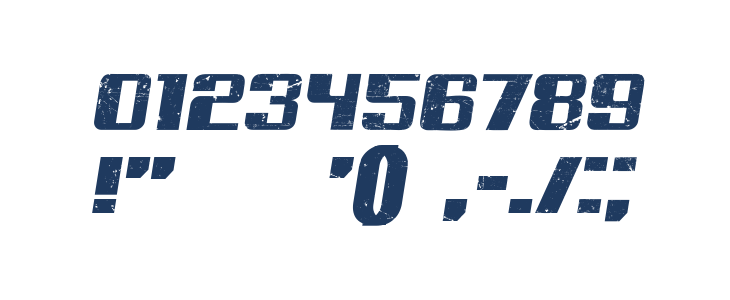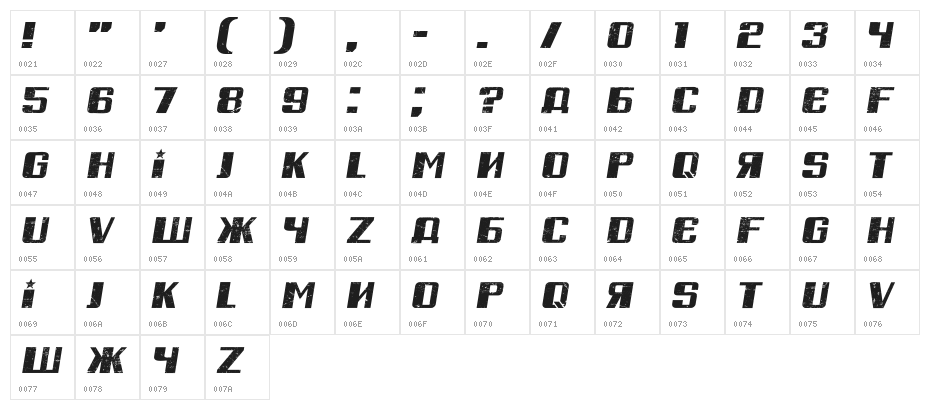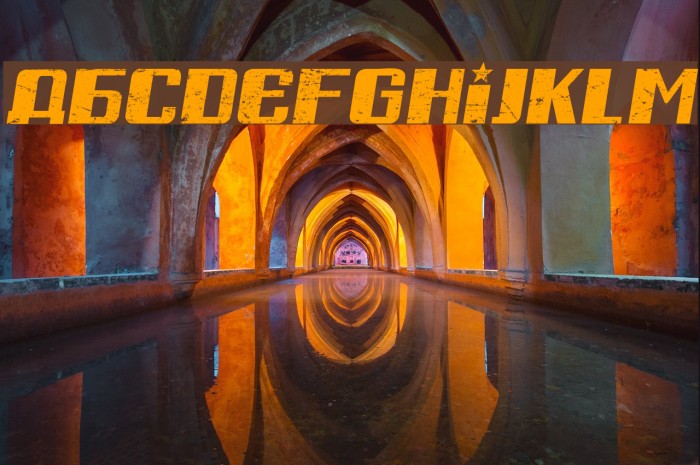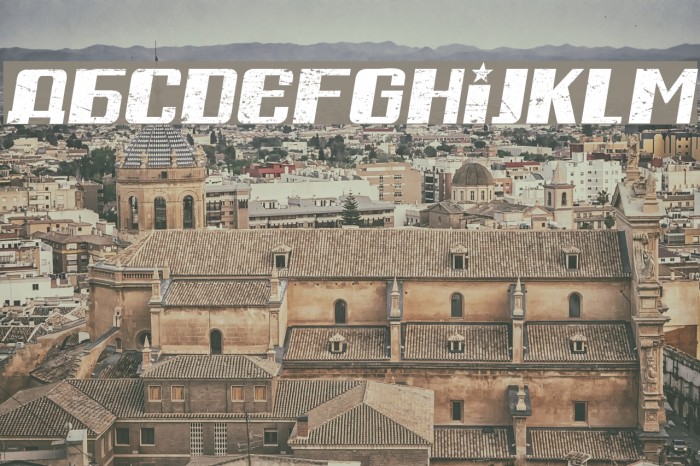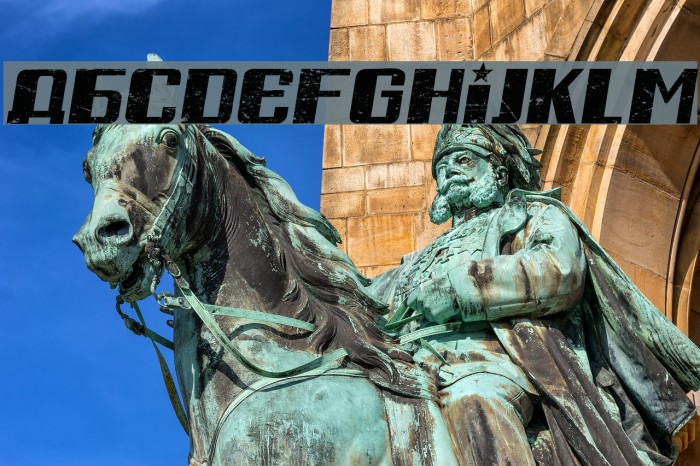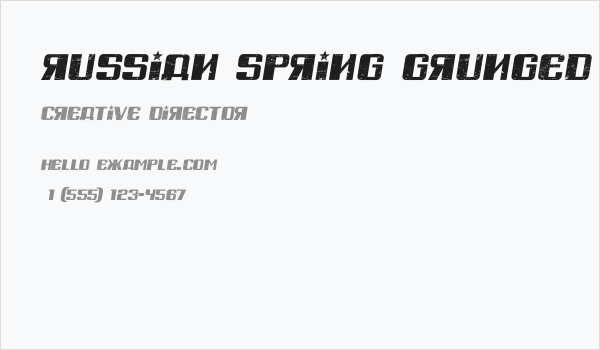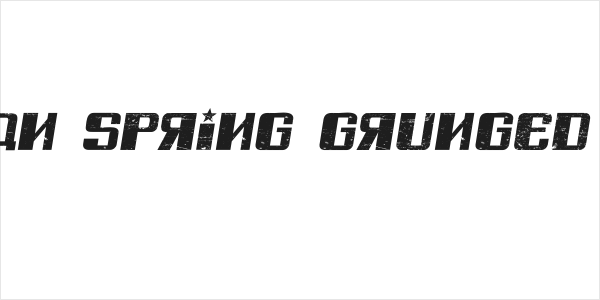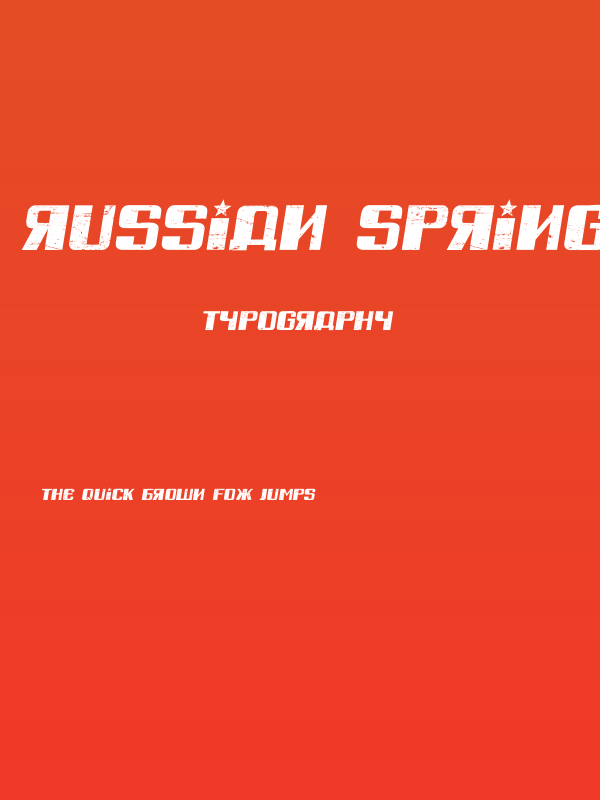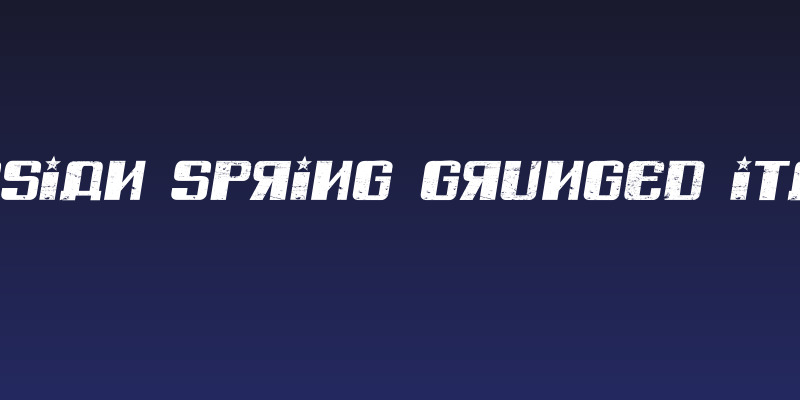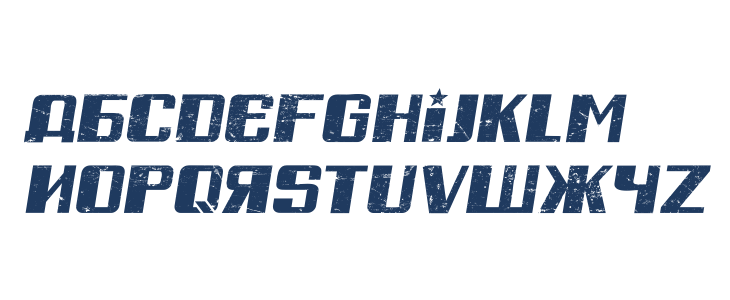
Russian Spring Grunged Italic Font
Russian Spring Grunged Italic Description
This font features a bold, distressed style with a grunge effect, giving it a rugged and worn appearance. The characters are italicized, adding a dynamic and forward-leaning aspect to the text. The uppercase and lowercase letters maintain a consistent width, with a slightly condensed form that enhances its compact look. The font includes unique elements such as stars within some characters, adding a decorative touch. The numerals and special characters follow the same distressed style, ensuring uniformity across all glyphs. This font's boldness and texture make it stand out, ideal for impactful designs.
Overall StyleGrunge, Decorative
Proposed ProjectsIdeal for posters, album covers, branding for edgy or alternative products, and any design requiring a bold, distressed look.